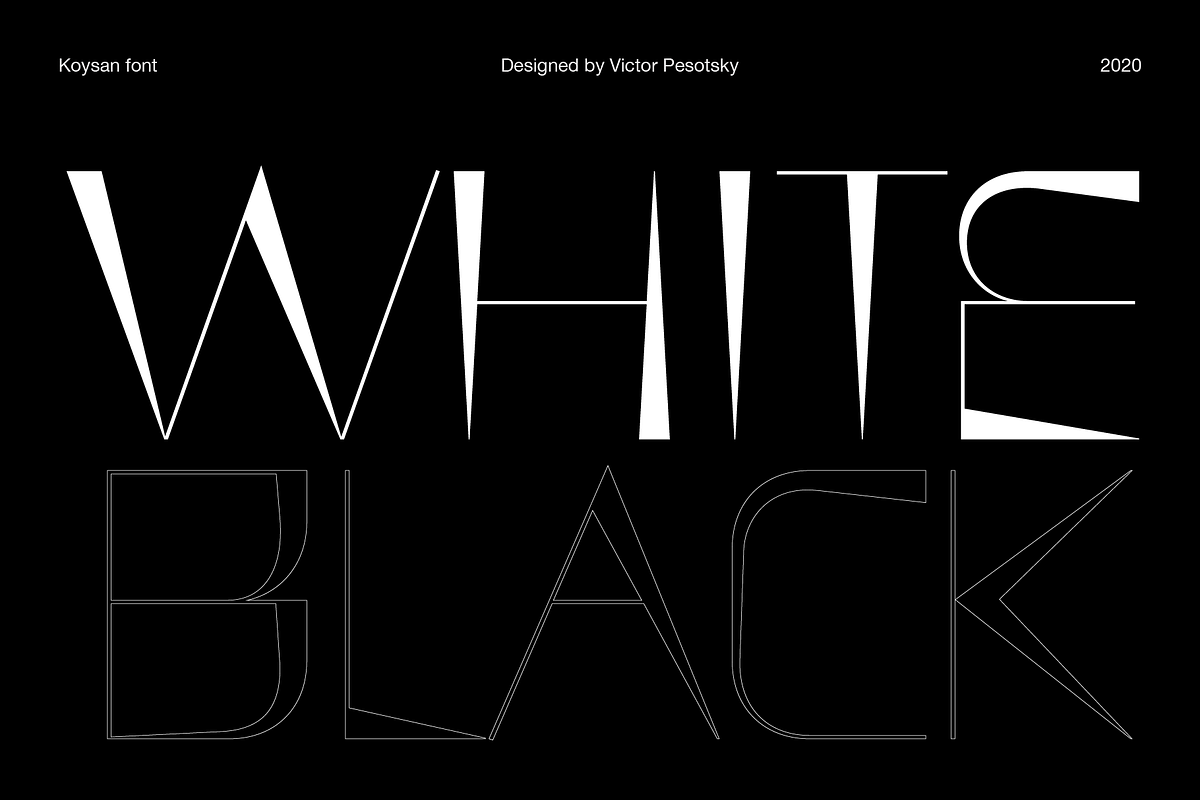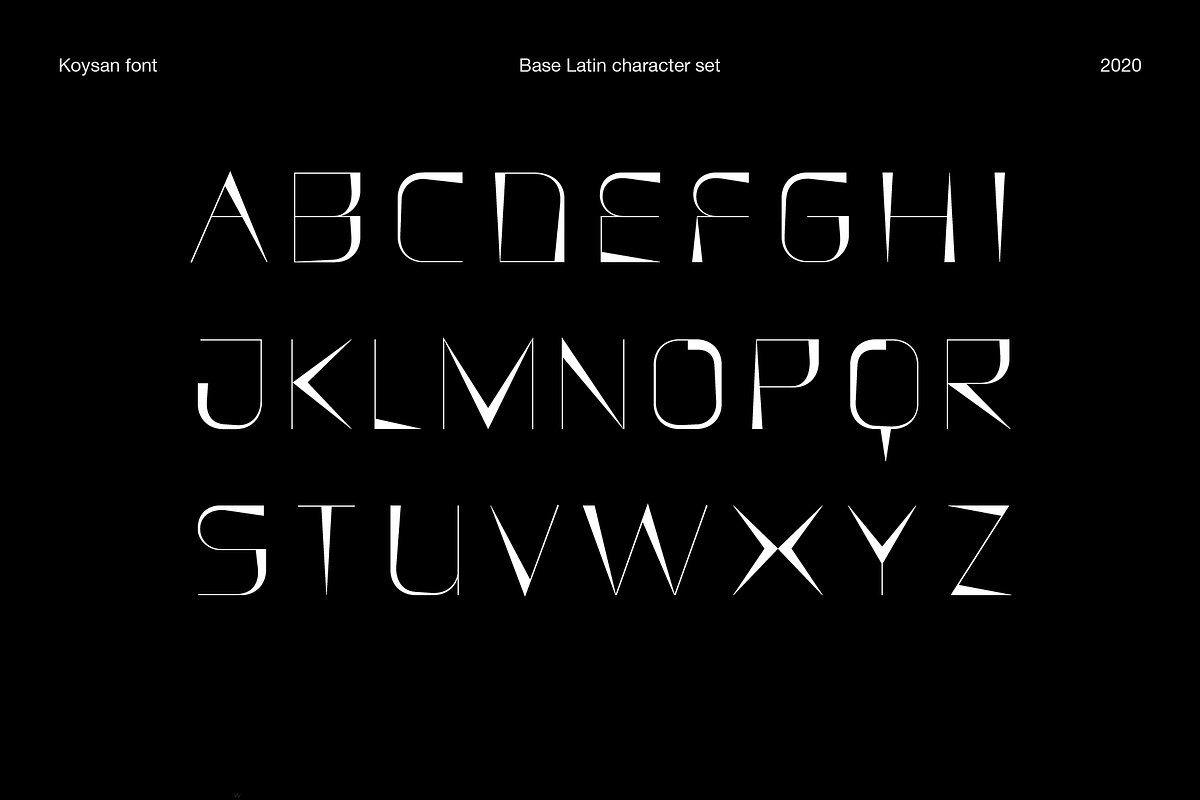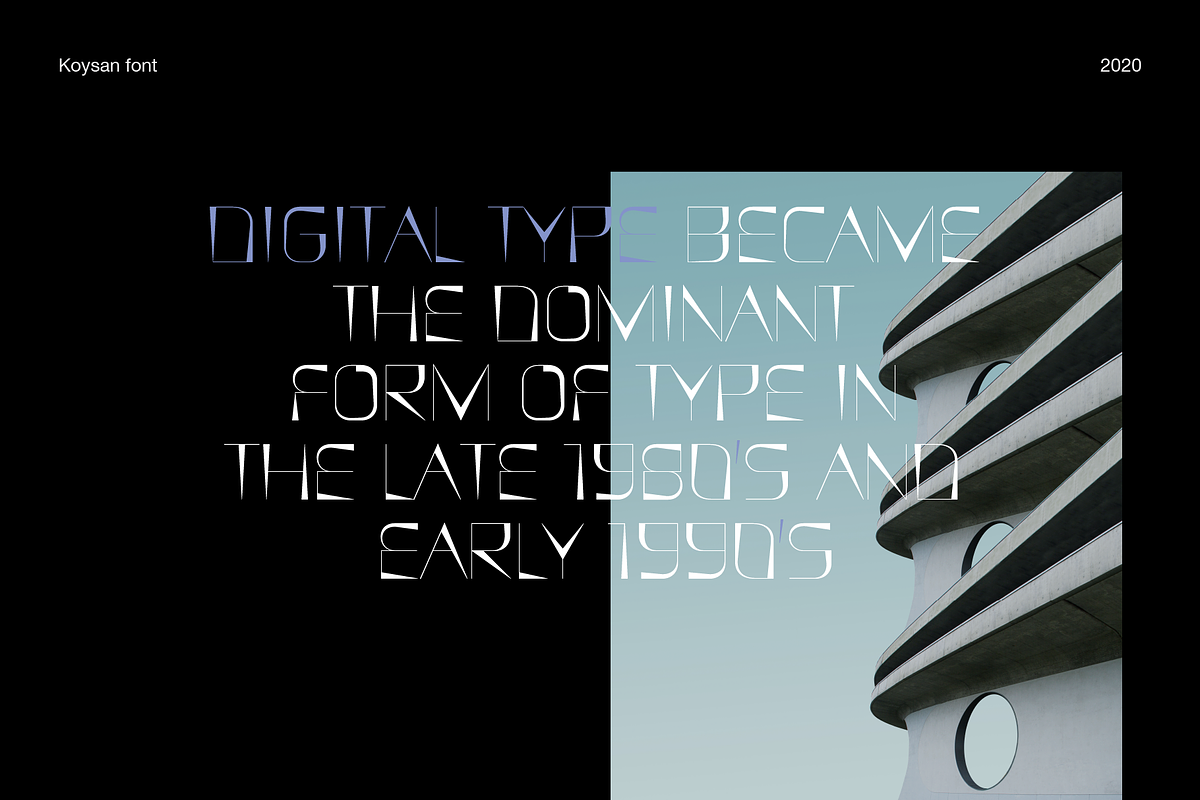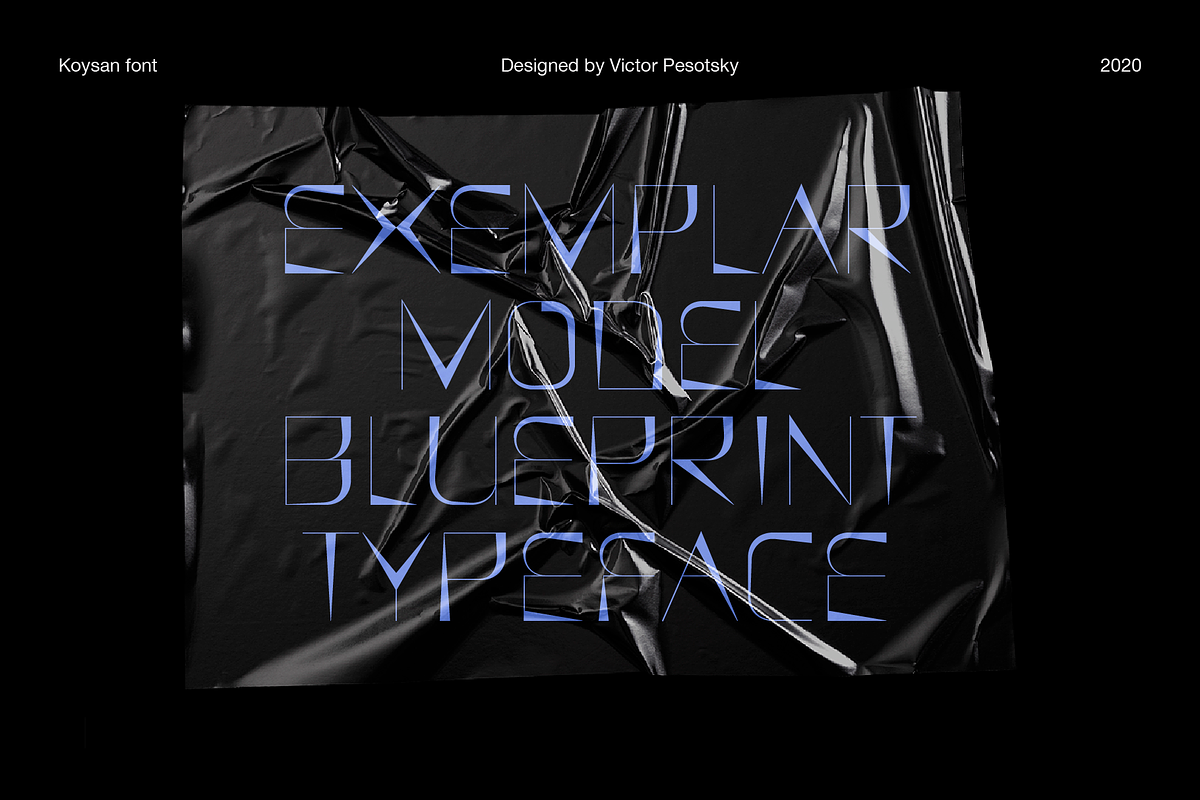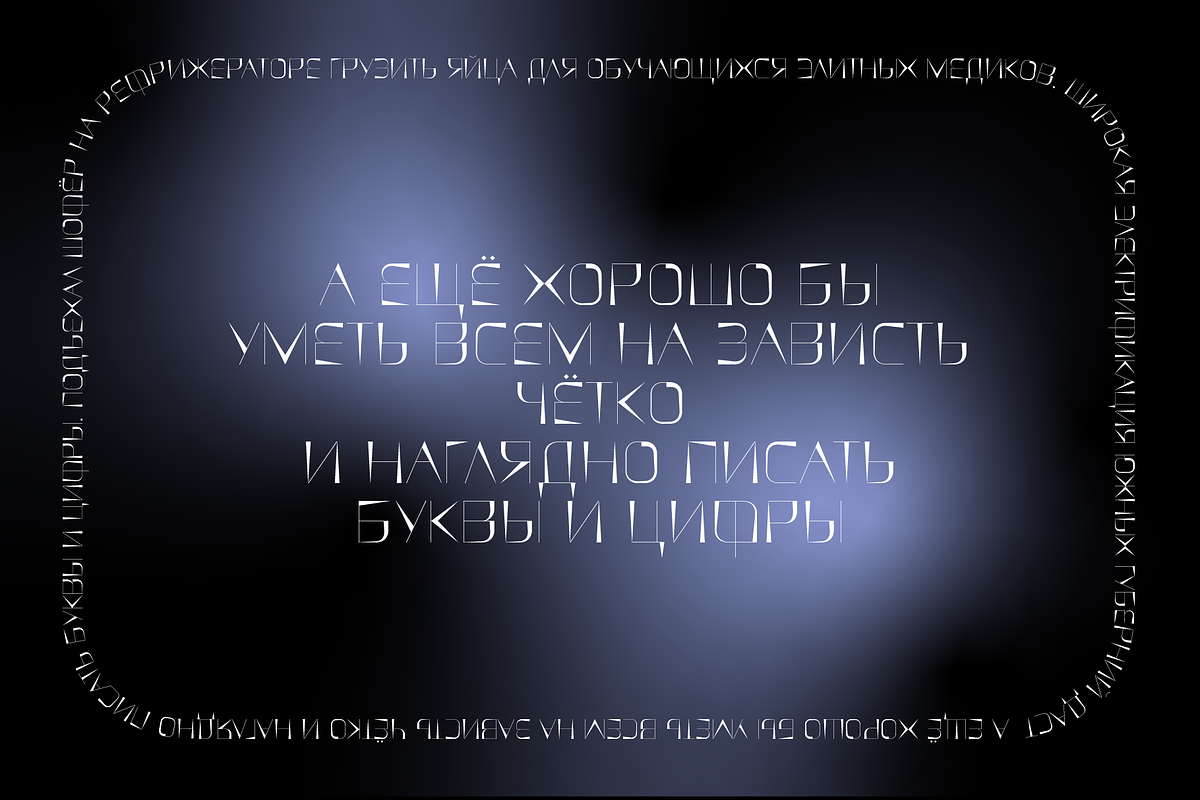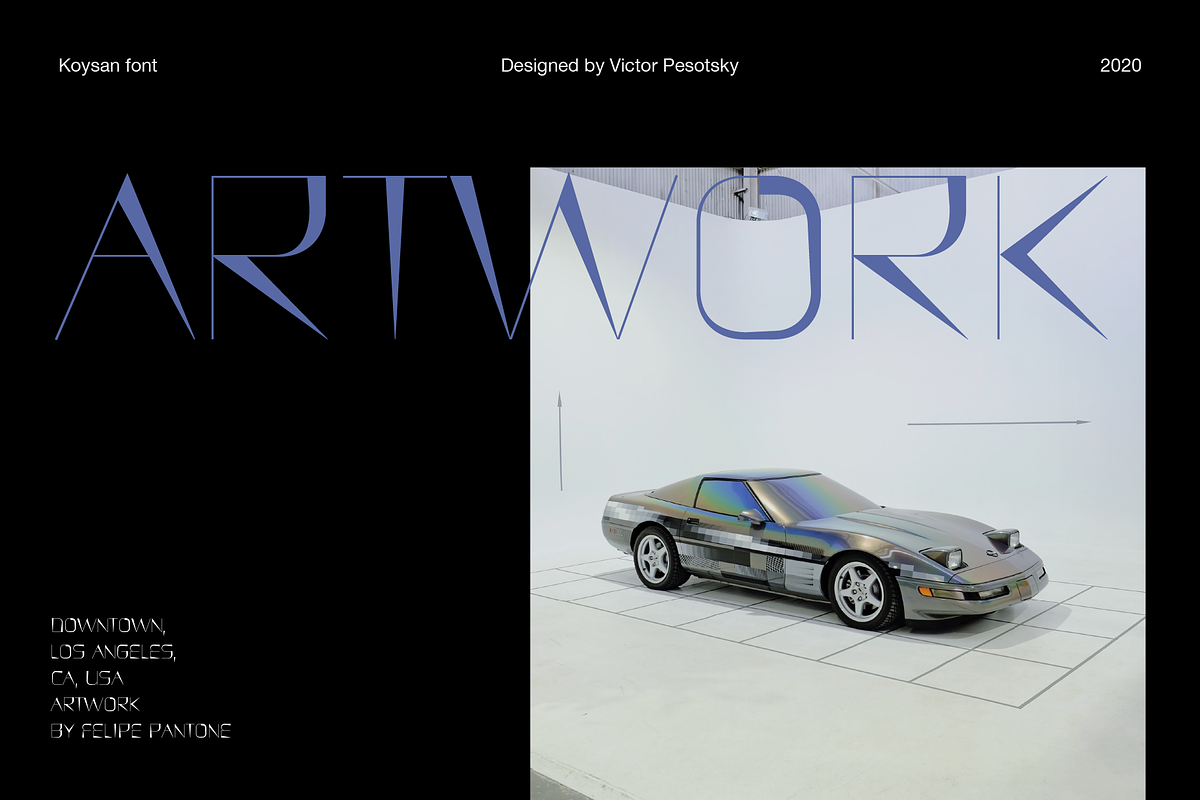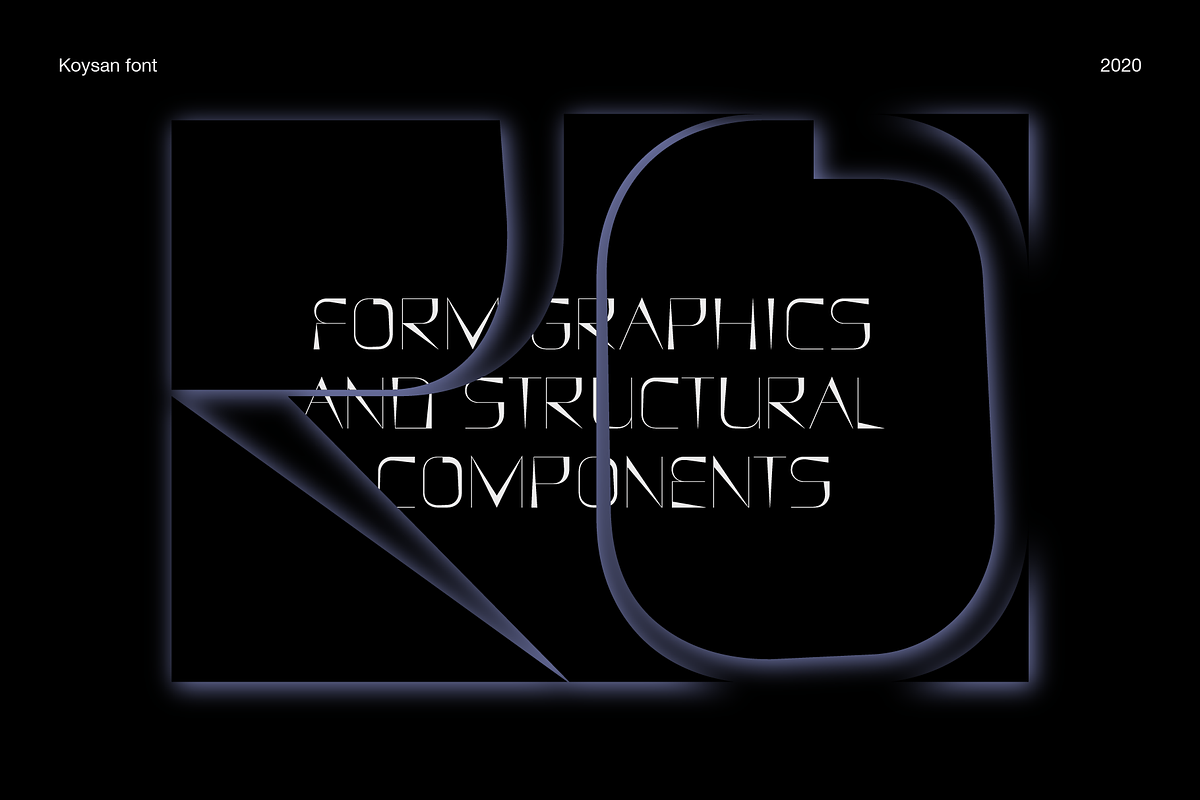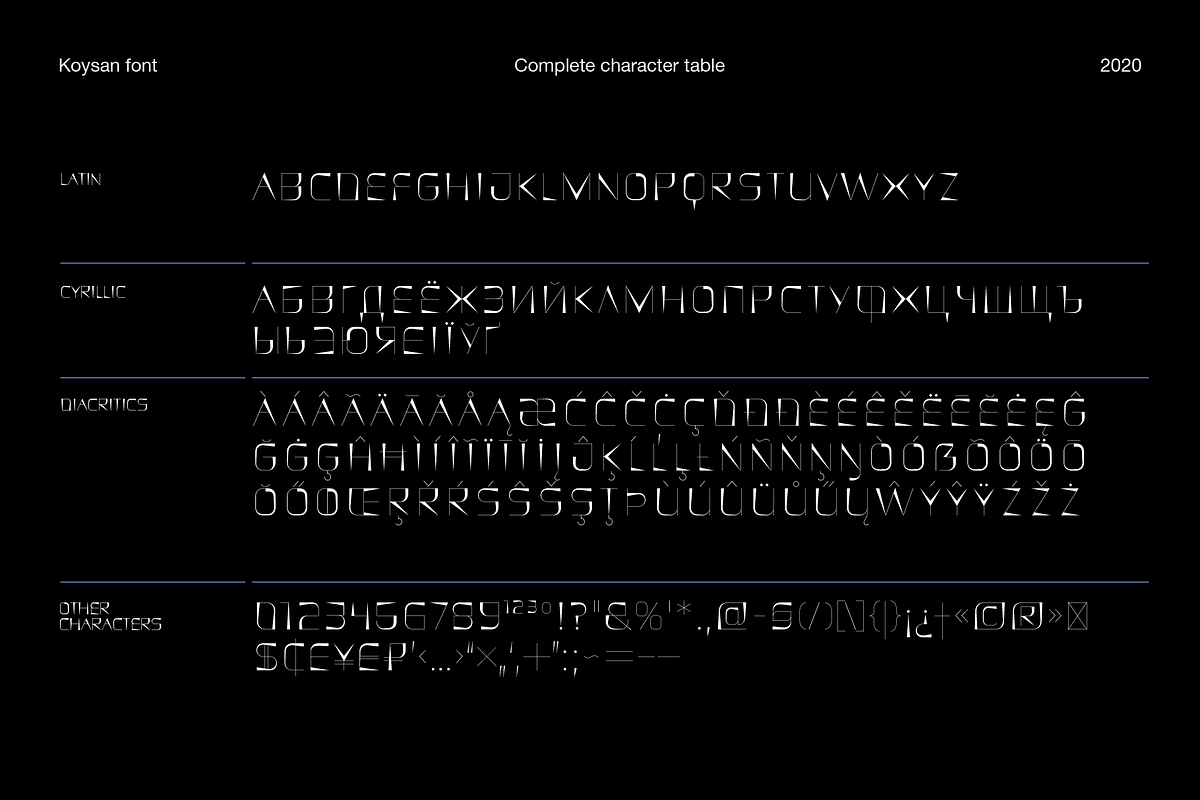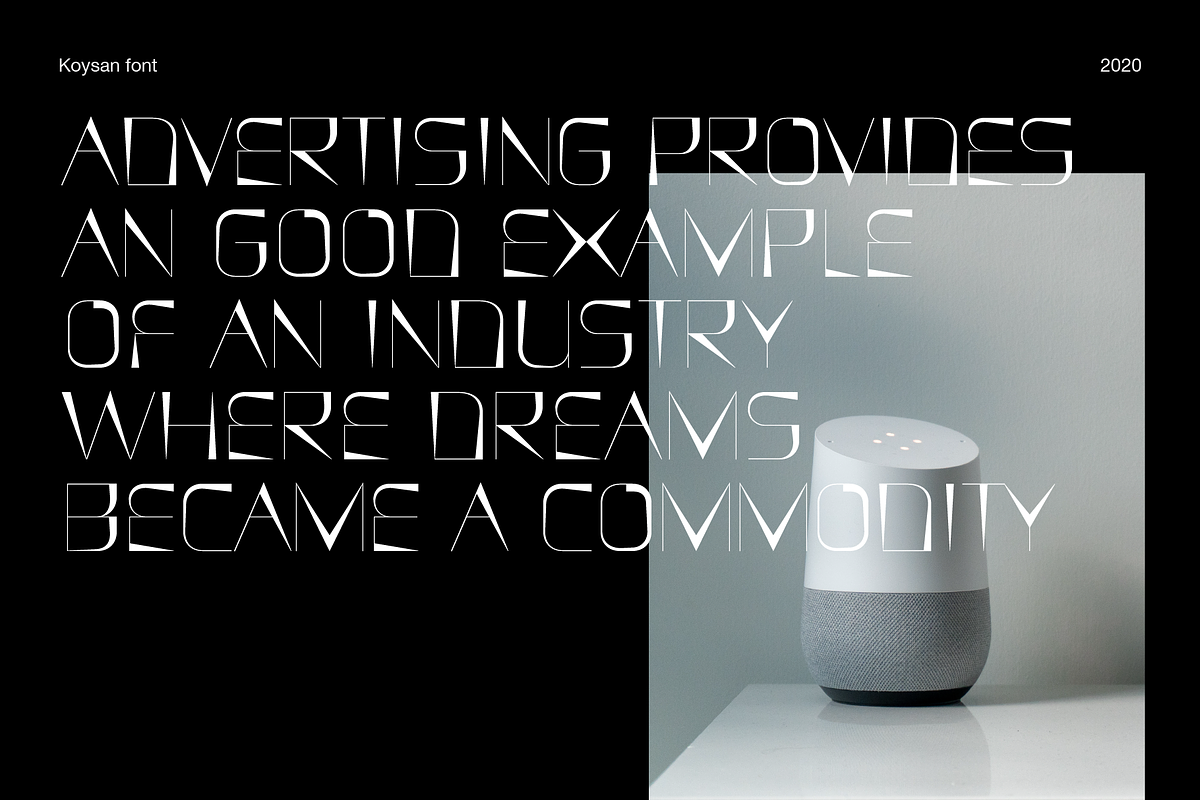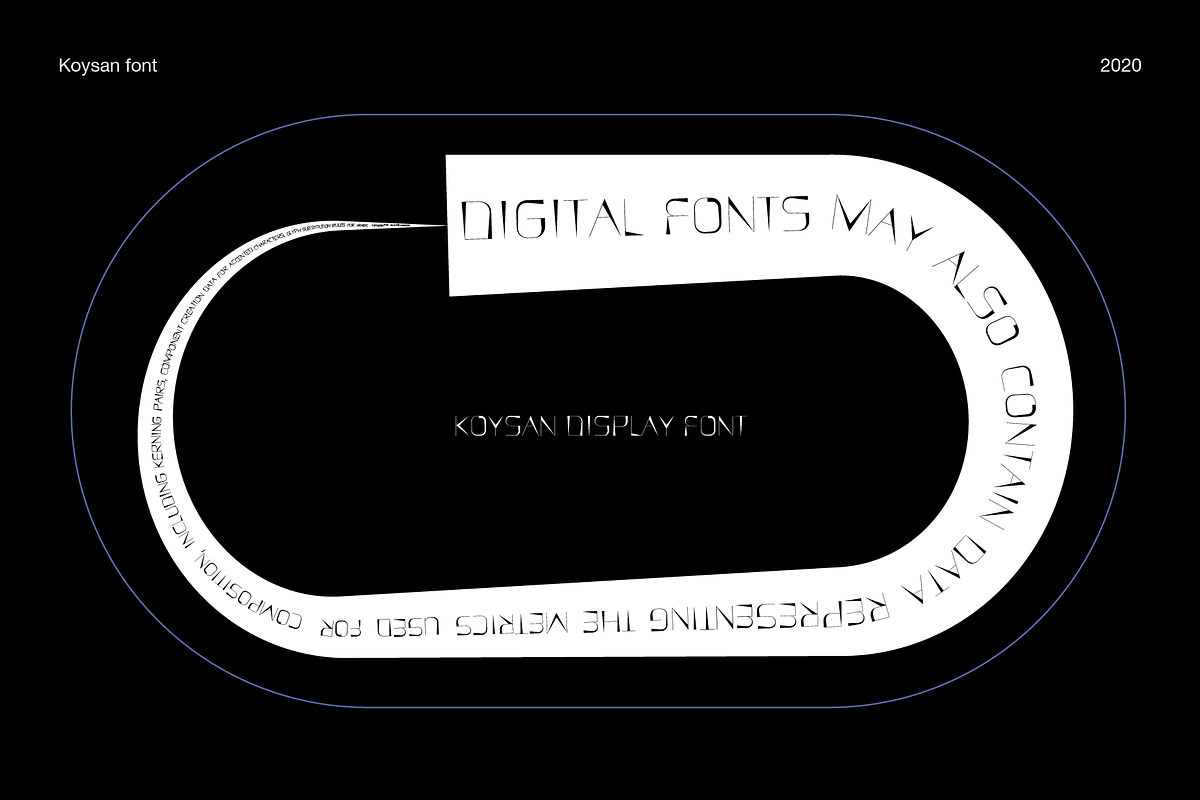
KOYSAN — Display font
The Koysan It's a display font. Is made for vivid headings, but it can also be used to type small paragraphs and texts. In a text set, it gives sharp, barbed textures, but compensates with half-ovals. The font combines the linear counteraction of thin vertical and horizontal lines with sharp and rigid strokes and smooth geometric ovals.
Koysan supports: — Basic Latin — Extended latin — Cyrillic — Diacritics — Numbers — Punctuation signs — Currencies — All Uppercase